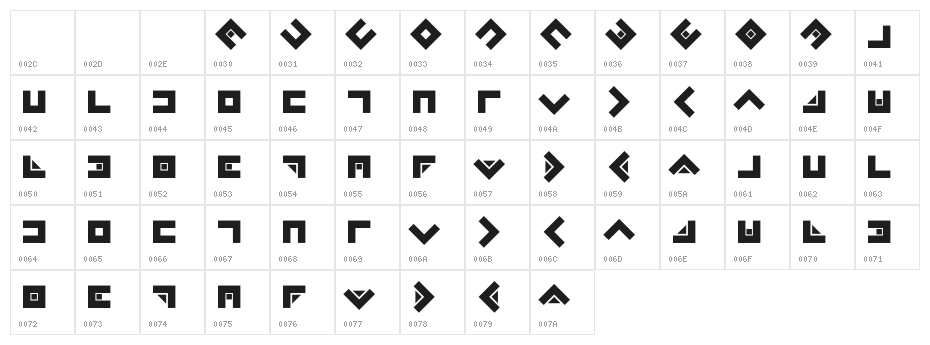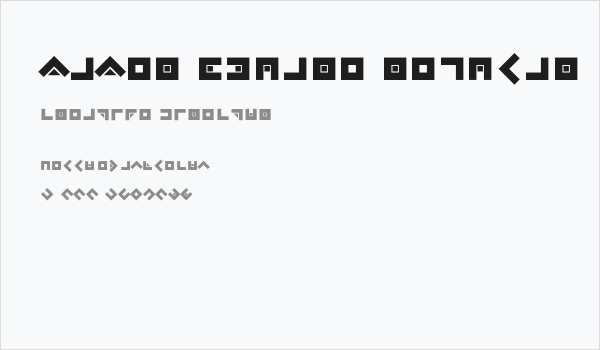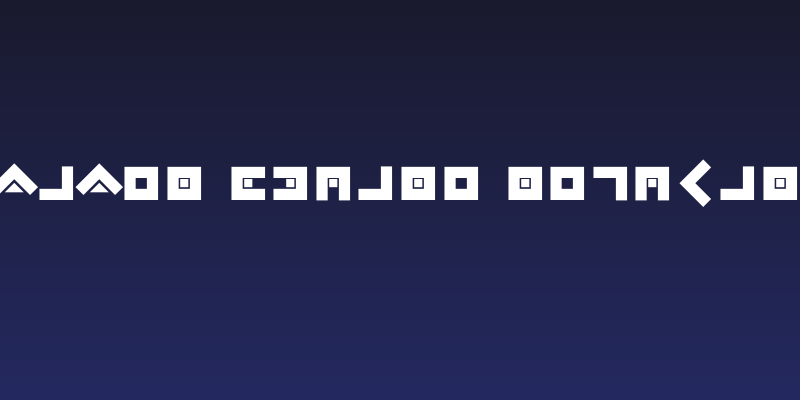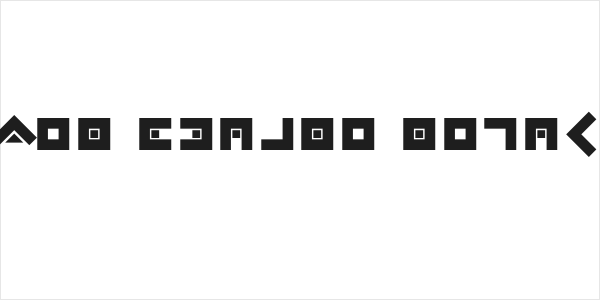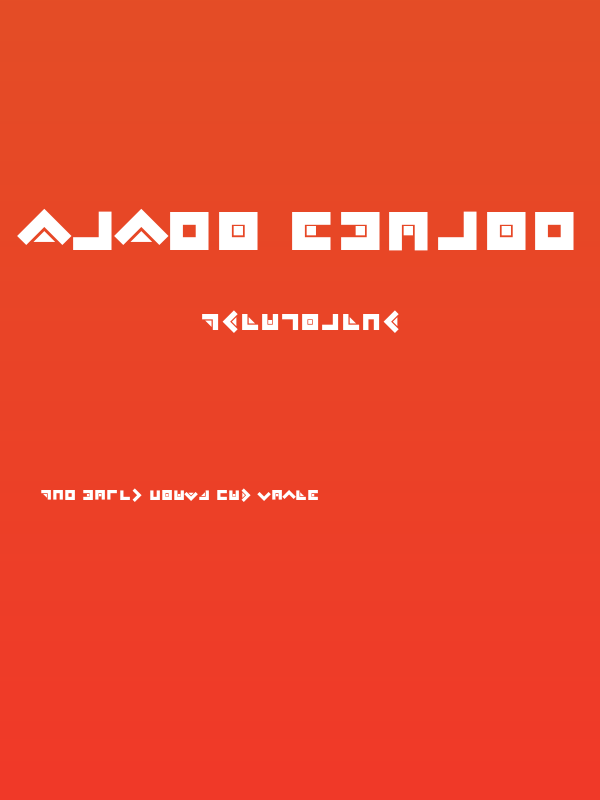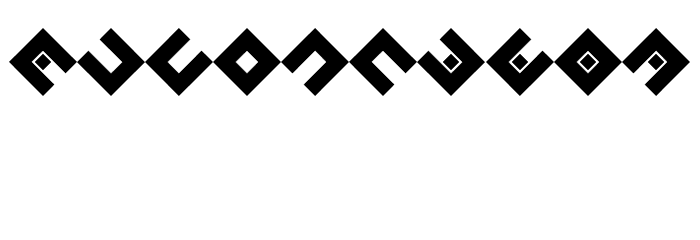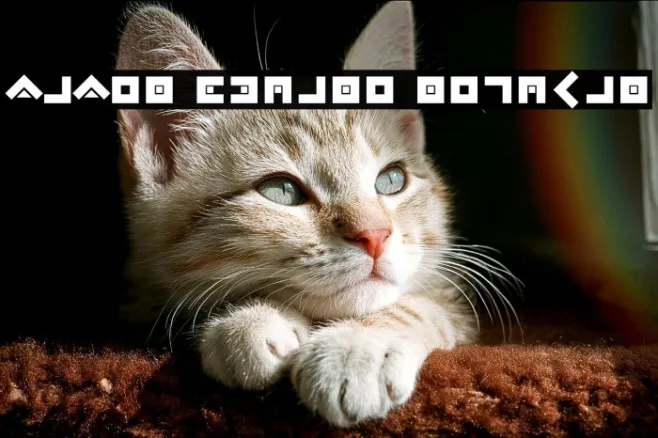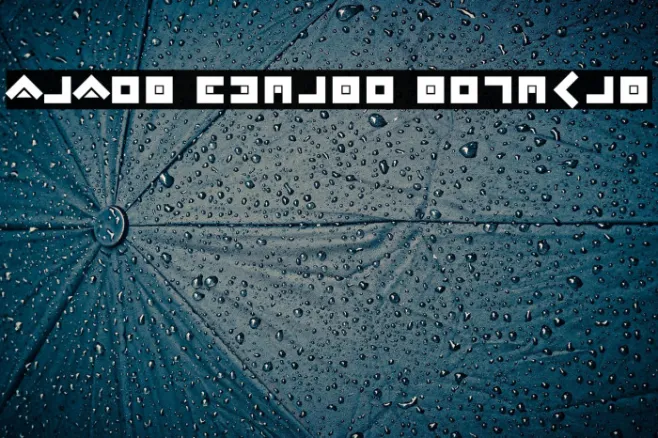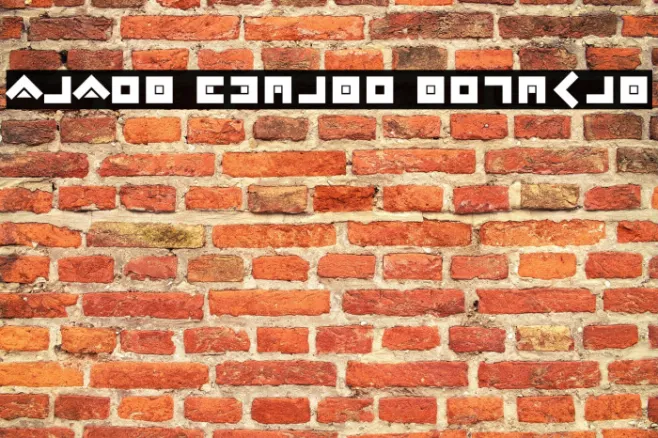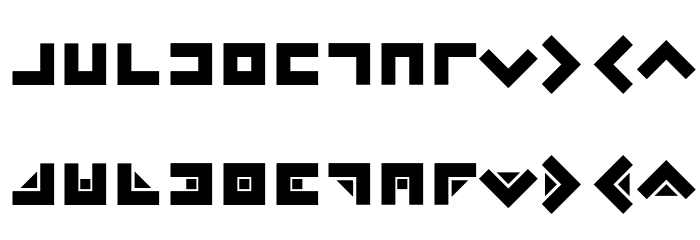
Zazer Square Regular Font
Zazer Square Regular Description
This font features a bold, geometric design with a distinctly futuristic and digital aesthetic. Each character is constructed from sharp, angular lines and blocky shapes, creating a sense of uniformity and precision. The letters are highly stylized, with a square-like appearance that emphasizes a modern, tech-inspired look. The consistent thickness of the strokes throughout the font adds to its bold presence, making it stand out in any design. The characters are evenly spaced, contributing to a clean and organized visual effect. This font is ideal for projects that require a contemporary and edgy feel.
| Proposed Projects | Ideal for tech branding, video game titles, futuristic posters, and digital interfaces. |